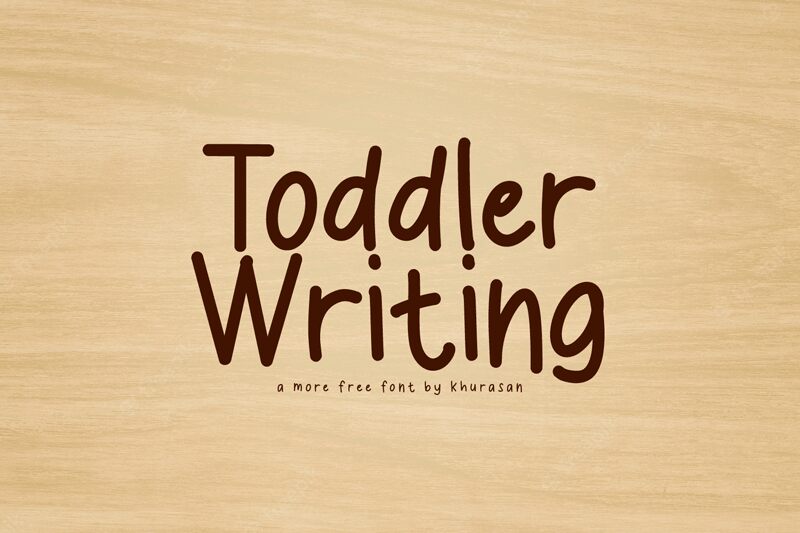
Toddler Writing, designed by Khurasan, is a delightful semi-light handwritten font that brings a modern and cute touch to any design. With its playful curves and charming strokes, this font is an excellent choice for various projects.
Whether you're designing posters, logos, magazines, book covers, or banners, Toddler Writing adds a unique and whimsical flair to your creations. Its versatility allows it to be seamlessly integrated into any creative idea you have in mind.
Capture attention and make your designs stand out with this amazing font. Embrace the warmth and charm of Toddler Writing as it adds a touch of innocence and creativity to your visual projects. Let your imagination soar with this captivating typeface!
Toddler Writing